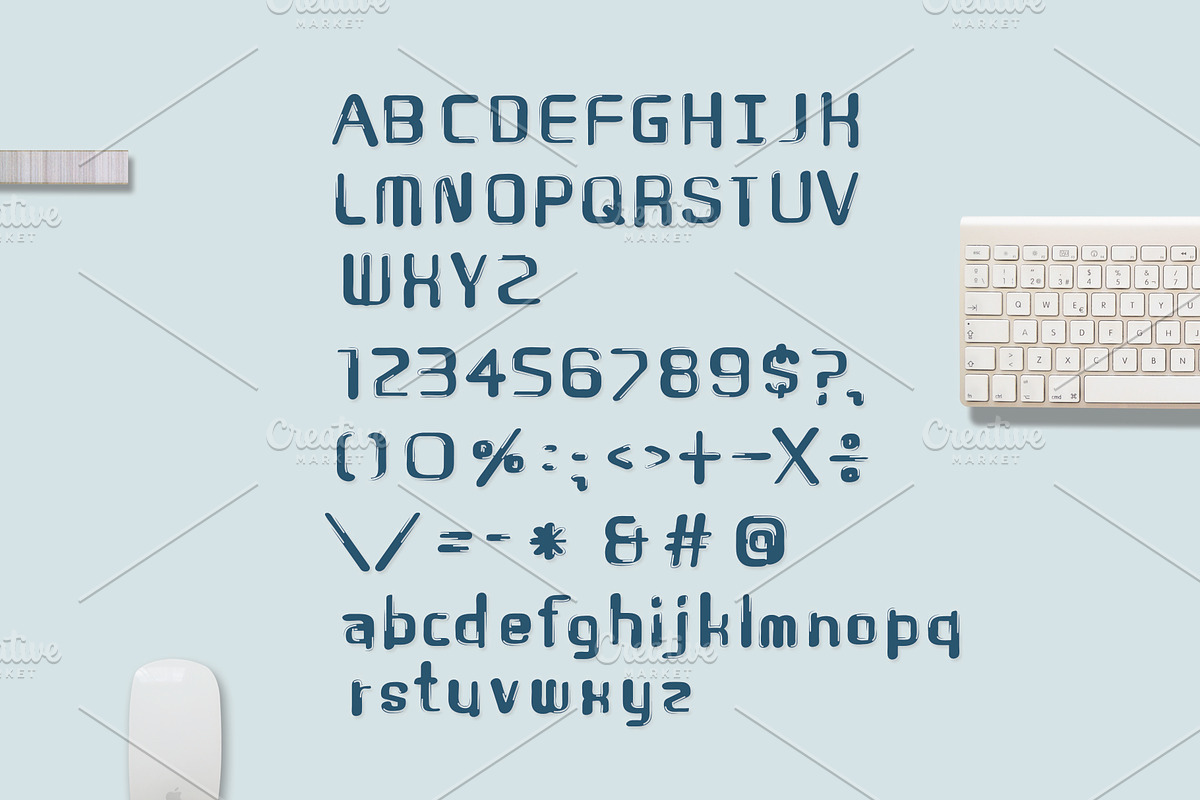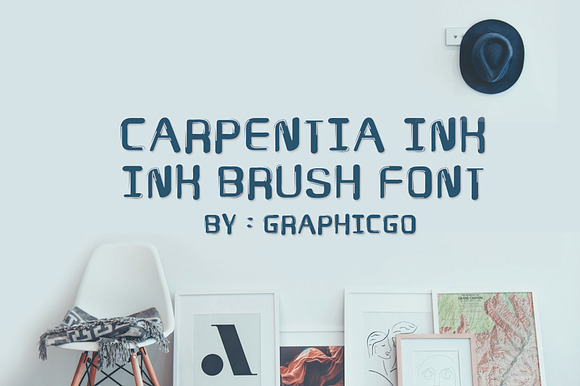
Carpentia Ink Brush Font
Carpentia Ink Brush Font is grunge brush writing style. It 's perfect for handmade products, cards, posters, wall art, branding, diy projects, greeting cards, labels, quotes, packaging, websites and much more.
Uppercase and Lowercase
Carpentia Ink Brush Font by Graphicgo fits naturally into Branding, posters, packaging, typography.